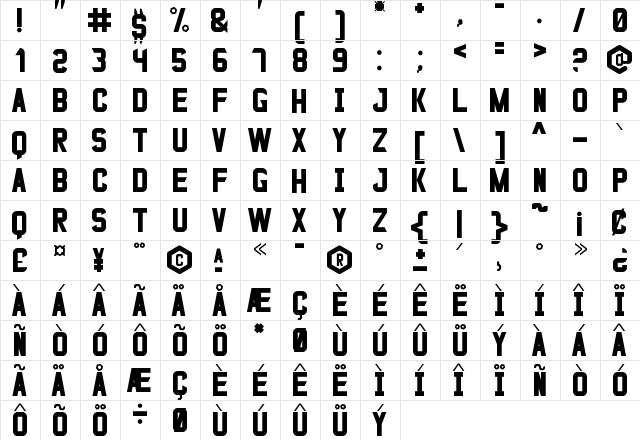
Blade Gunner 2049 St Regular
Design Context for Blade Gunner 2049 St Typeface
Blade Gunner 2049 St is a composed and adaptable typeface that performs quietly and consistently across a wide range of design contexts.